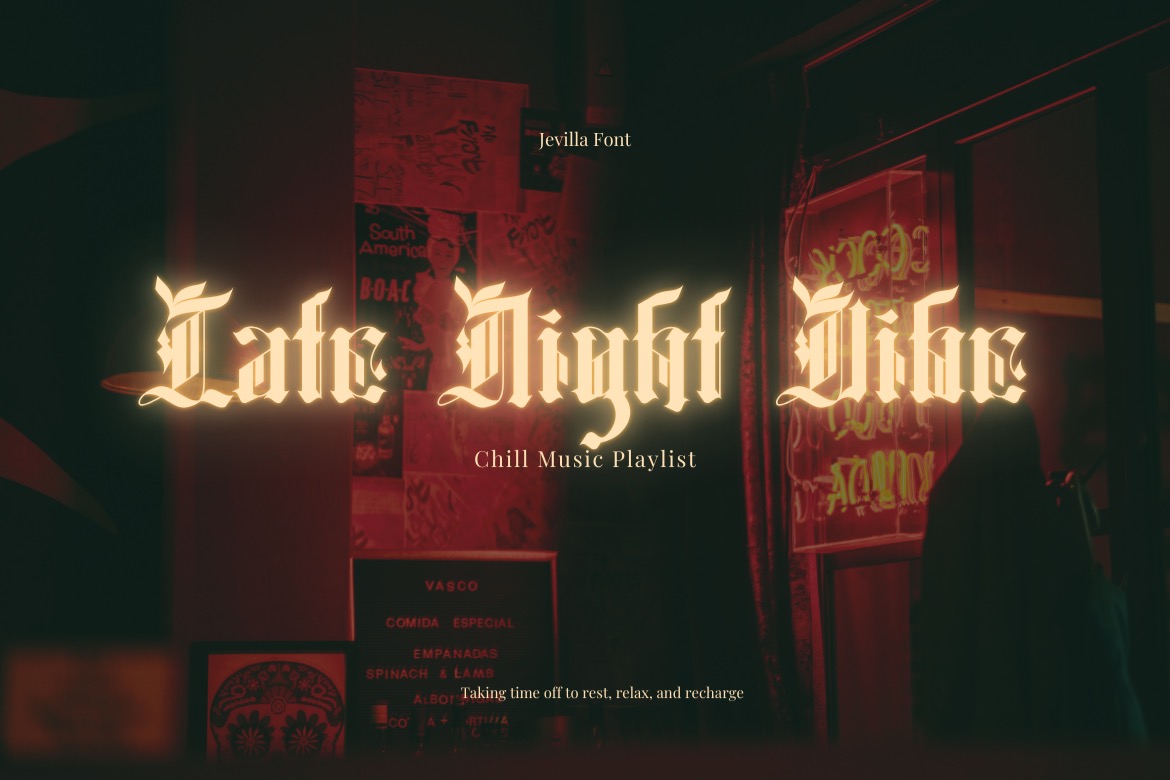
Jevilla delivers a dark, commanding energy—dramatic, bold, and unapologetically expressive. It feels ceremonial and streetwise at the same time, blending old-world tradition with a modern, high-impact attitude.
At first glance, the sharp vertical strokes and sculpted angles immediately signal strength and authority, while the crafted swashes add a premium, hand-forged character that demands attention.
The mood it brings is intense and confident—perfect for designs that need presence, grit, and identity. Jevilla shines for brands with a fearless voice: streetwear labels, tattoo studios, barbershops, craft coffee and roasters, motorcycle or metal-inspired merchandise, game/esports branding, posters, album covers, packaging, and bold editorial titles. Its overall impression leans strongly masculine and assertive, with a formal, emblem-like elegance rather than something playful or casual. With extensive alternates and clean ligature support, it also gives you flexibility to push the look from classic gothic to more contemporary display styling.